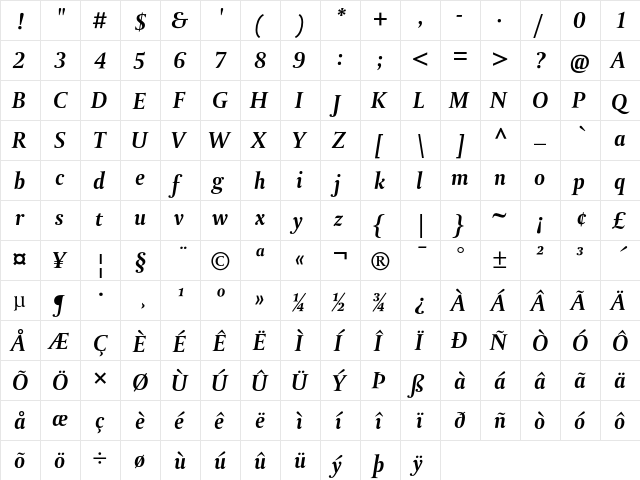
DTL Paradox T Bold Italic Font Preview
Design Context for DTL Paradox Typeface
DTL Paradox takes a measured approach to typography — its balanced proportions and neutral character make it a reliable workhorse for both digital and print work. The dynamic lean of this cut emphasises speed and emphasis in any layout. The heavy weight commands attention and anchors typographic hierarchies.
Pro Tip: Try DTL Paradox for annotation and caption copy alongside an upright companion — the contrast in angle creates a dynamic but ordered typographic system.